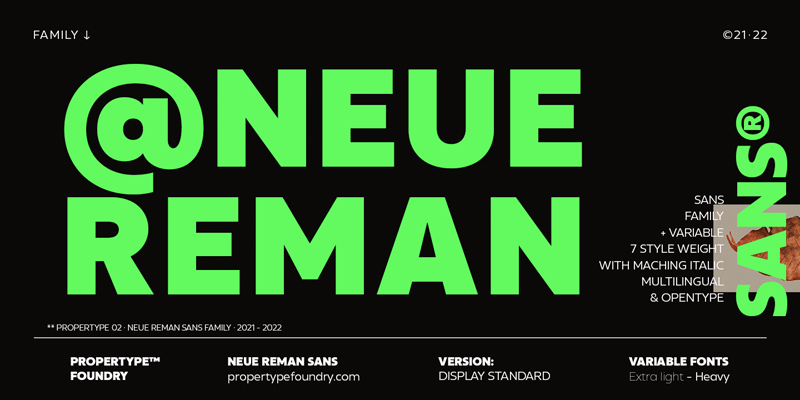
Full Family: - My Fonts https://www.myfonts.com/fonts/propertype/neue-reman-sans/ - Gumroad https://propertypefoundry.gumroad.com/l/neueremansansfonts - Creative Market https://creativemarket.com/Propertype/7220728-Neue-Reman-Sans-Family It is a Roman, Humanist, Grotesk and Geometri sans serif family. The family comes in 7 weights with matching italics + Variable Font File and includes multilingual latin characters. Neue Reman Sans contains 306 glyphs - this is the first version of Neue Reman Family with standard ligatures and a variety of figures and fractions. We create Neue Reman typeface to use in multipurpose project such as on website, systems, printing, embedding, servers, screens, display, digital-ads, branding, logos, titles, headlines, teks, and everything else. This font is a project that we are working on for the long term. We are in the process of working on Condensed and Expanded versions. Then we plan to continue working on Latin Pro, Greek and Cyrillic. It all will be updated gradually. So, hope you would like the first version of Neue Reman Sans Serif Typeface. Thank you very much. Contact to propertype.foundry@gmail.com |